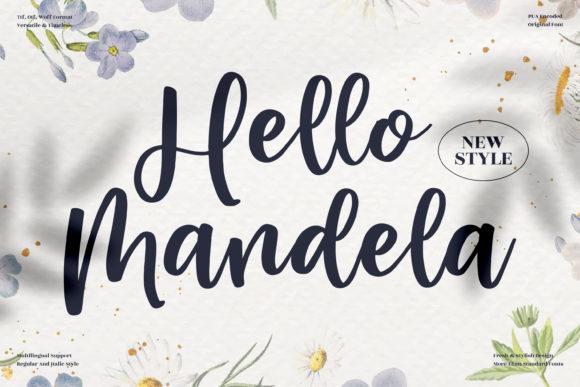
Hello Mandela Font
Hello Mandela is a beautiful and cursive handwritten font. This gentle font will look gorgeous on a variety of design ideas. It will add a joyful and romantic touch to each of your projects!